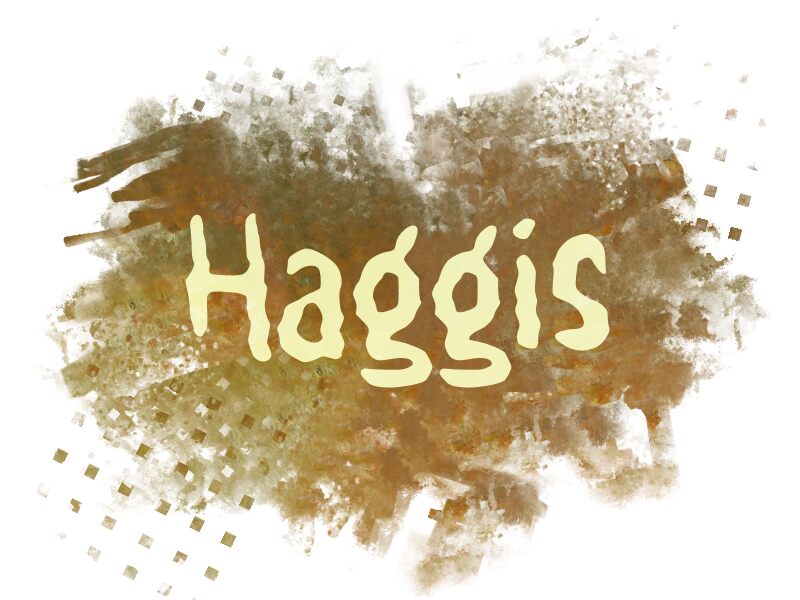
Haggis
Haggis font by wep is a whimsical, cartoonish typeface with a playful and chunky appearance. This retro-inspired display font exudes informality and a lively spirit, making it ideal for designs with an inviting allure. This free font goes perfectly in comic graphics, animations, or video games.
Use Haggis to design fun posters, book covers for children’s books and coloring books with quirky typography, branding projects for toys or play centers, banners and so much more.